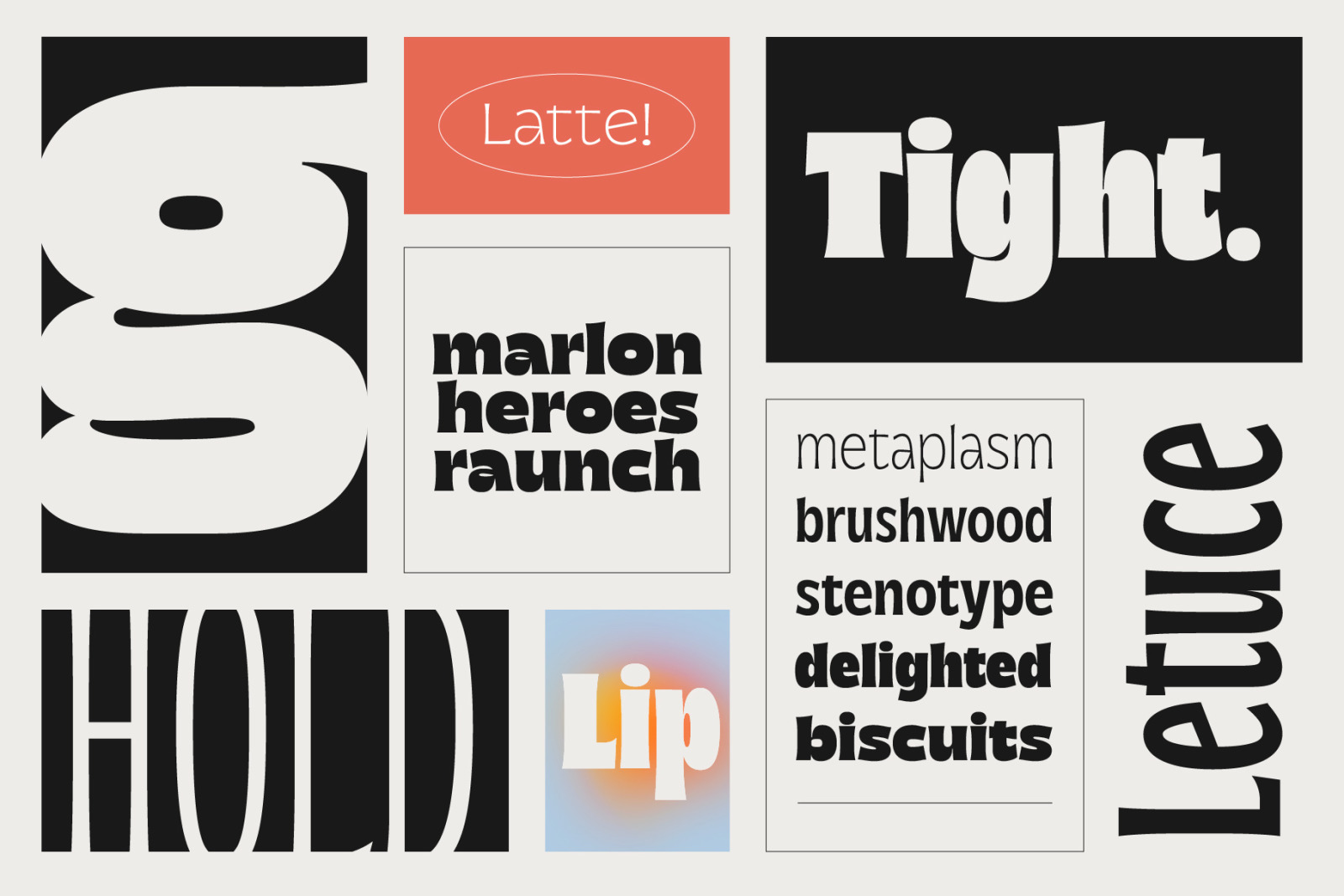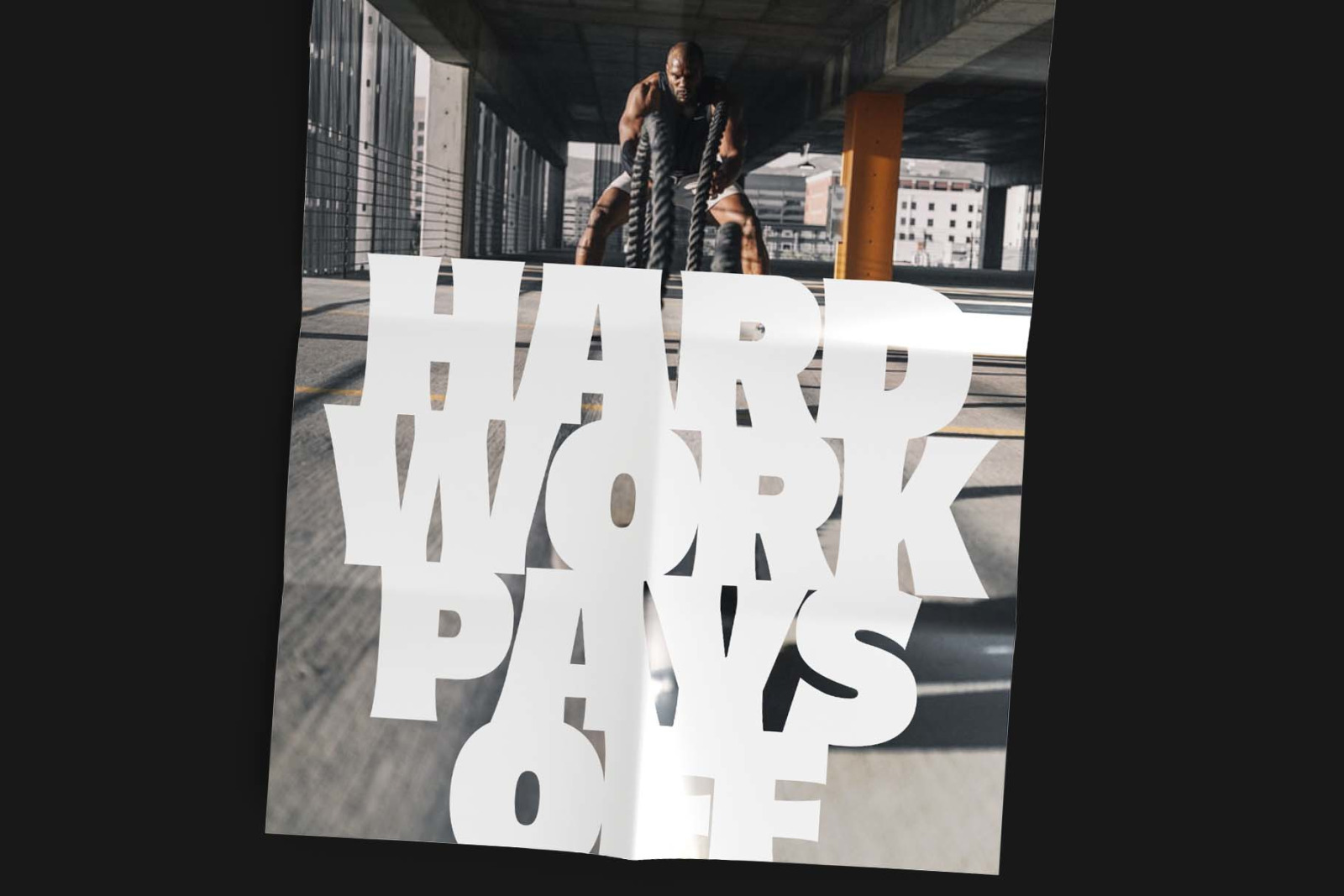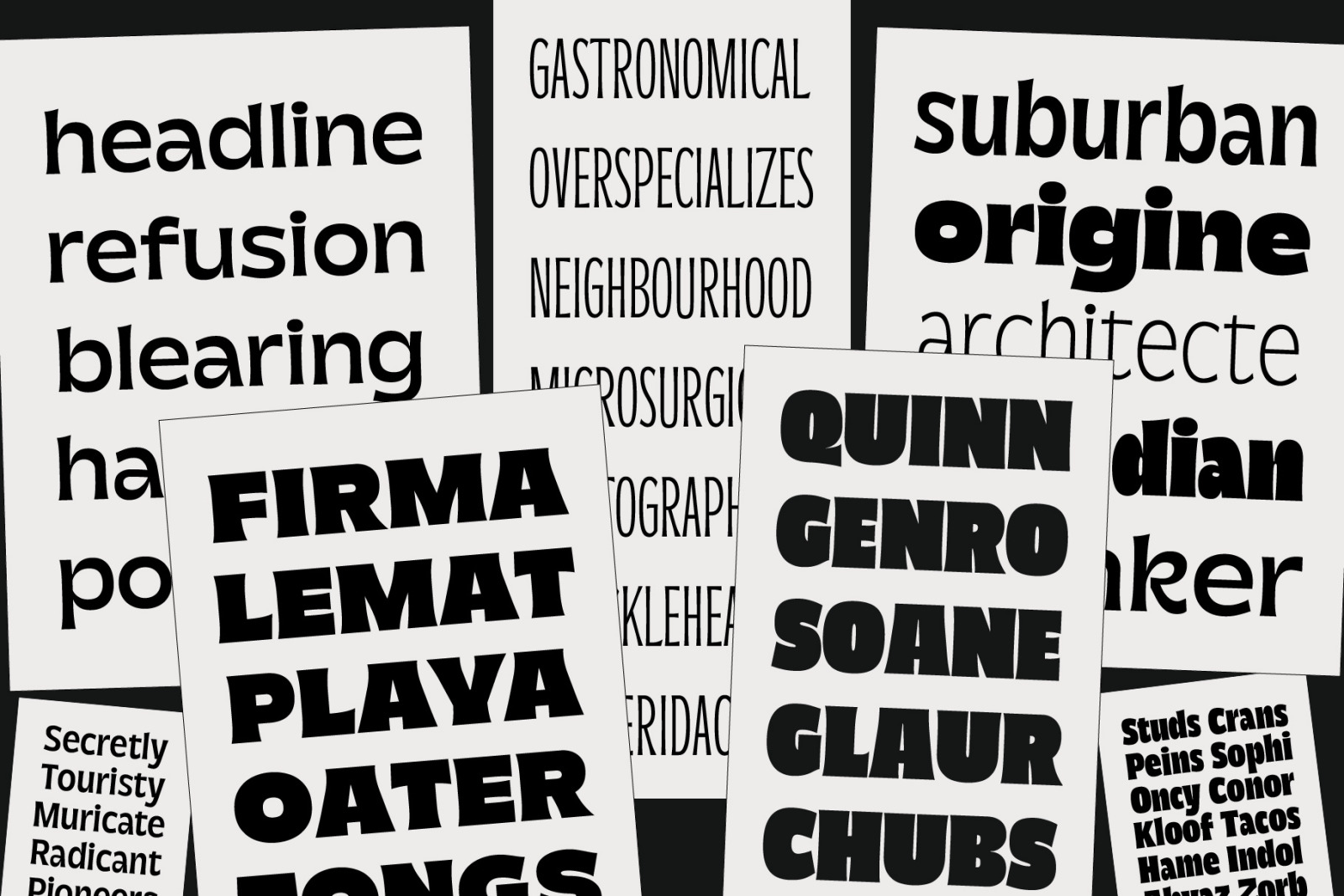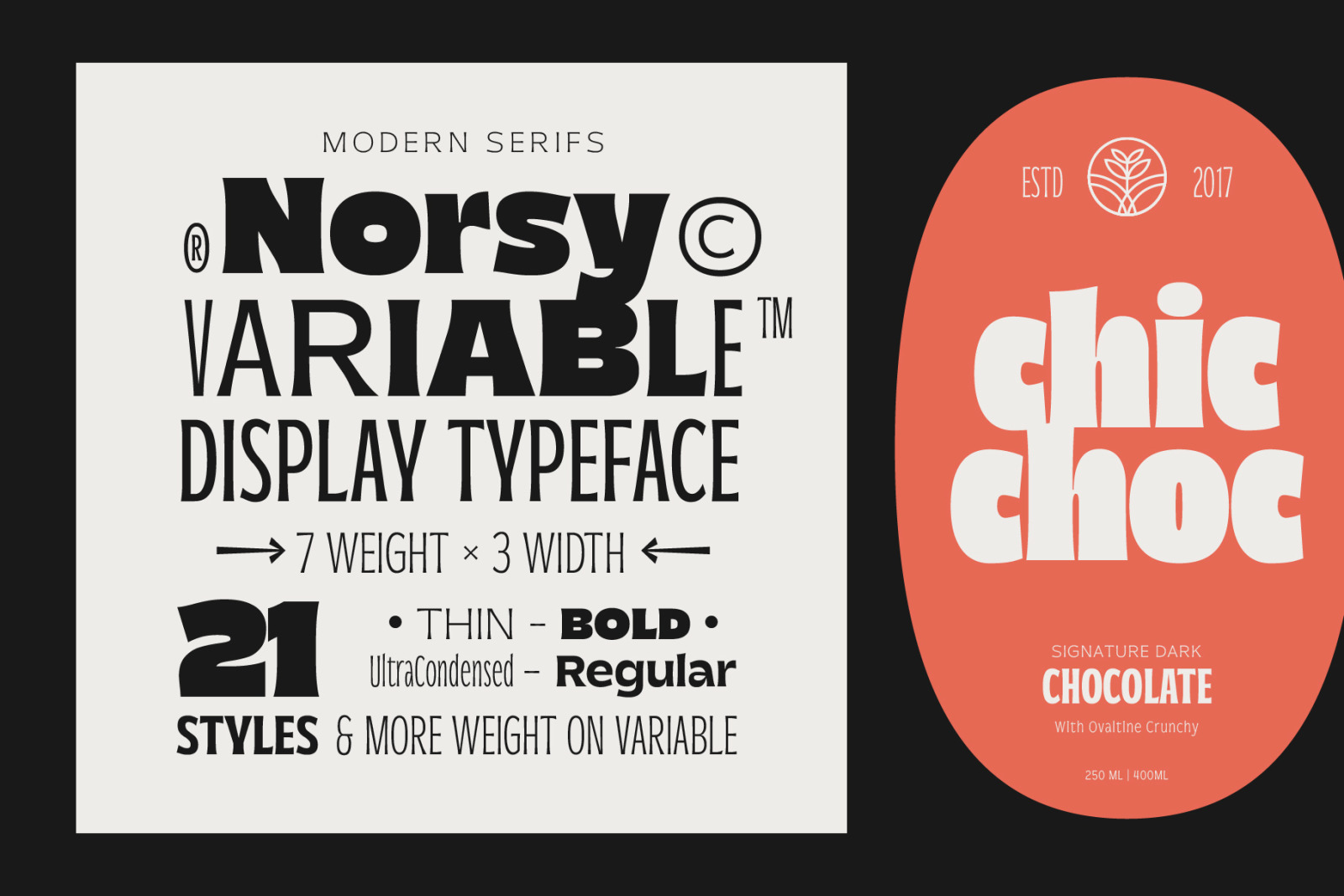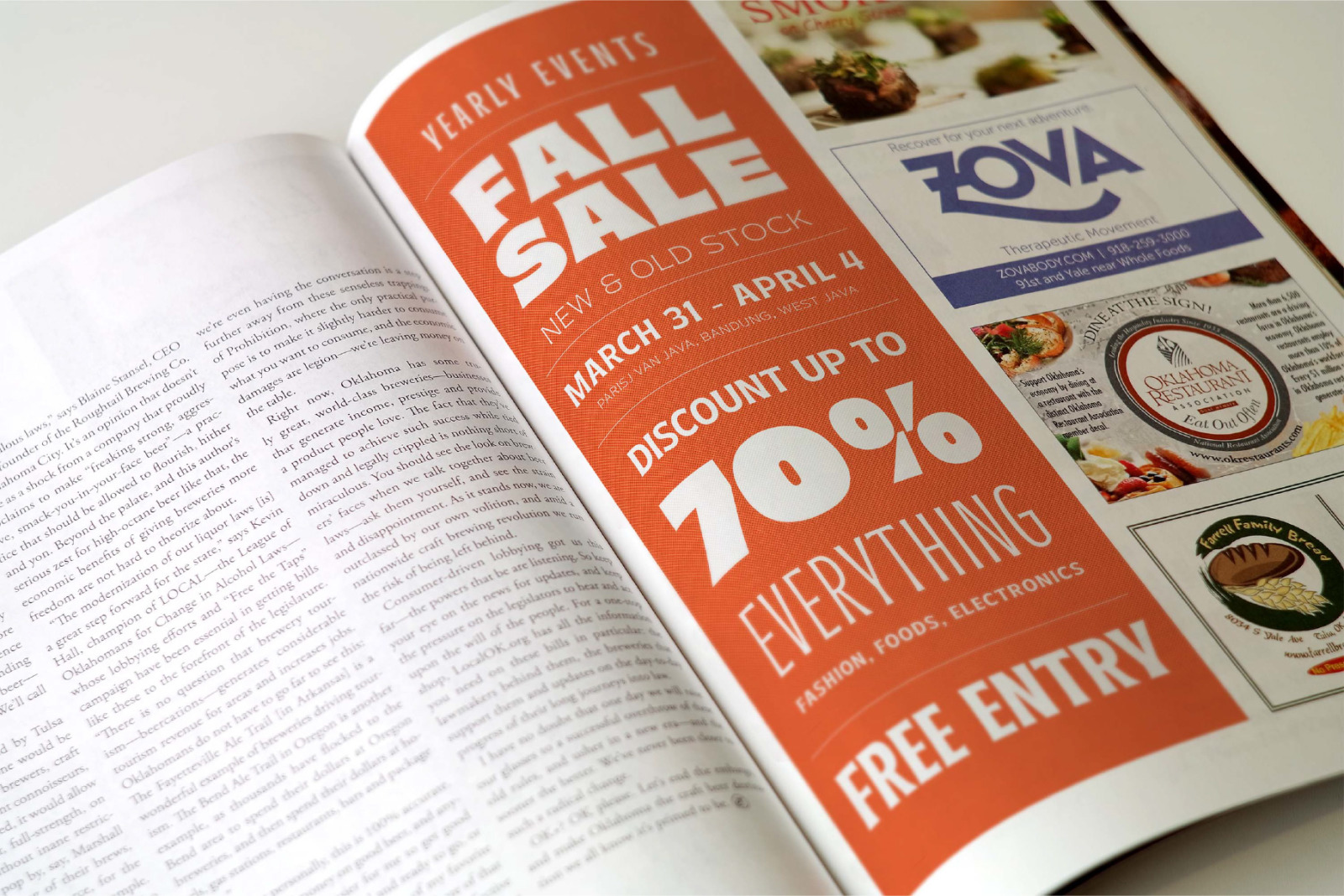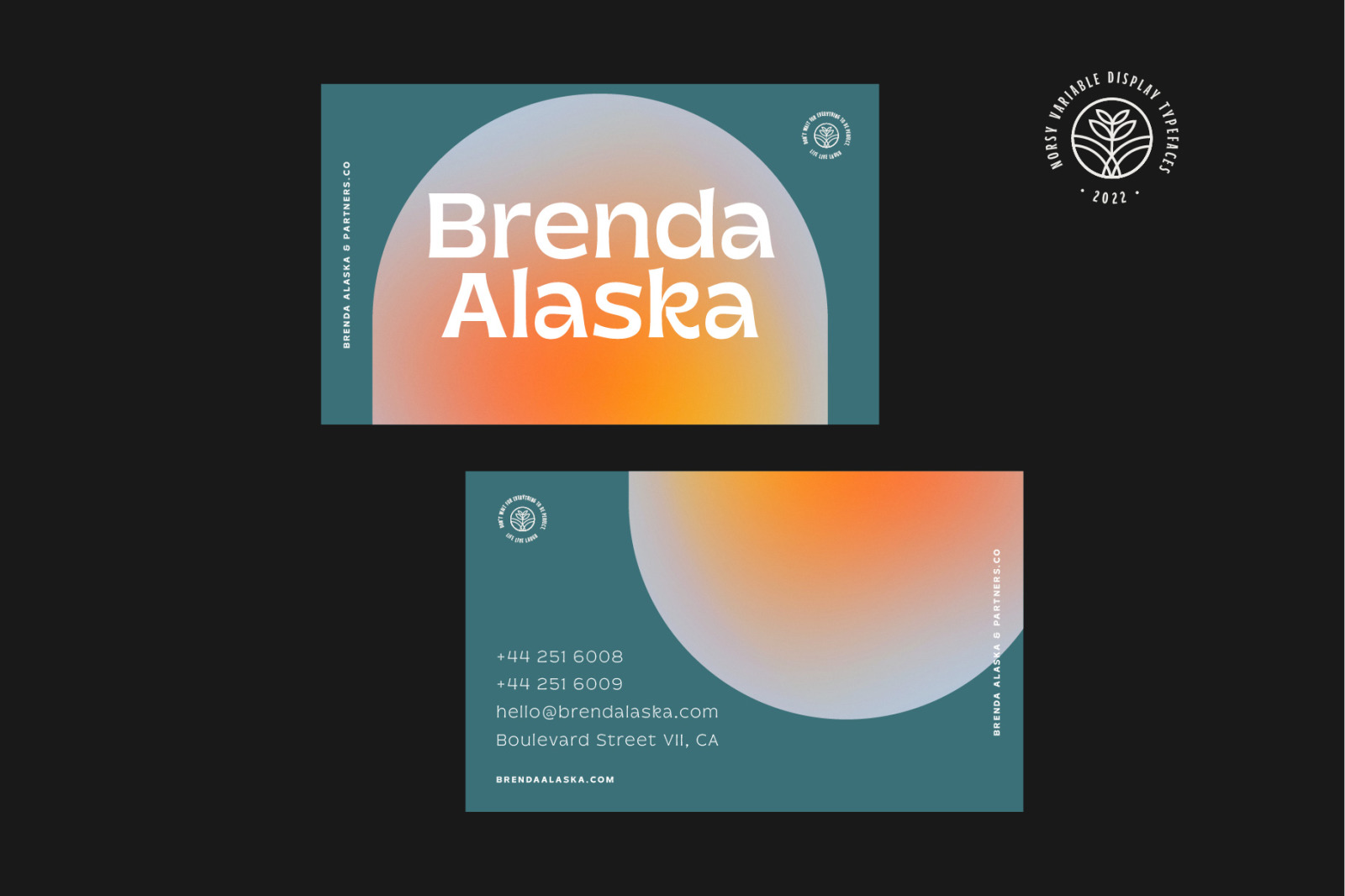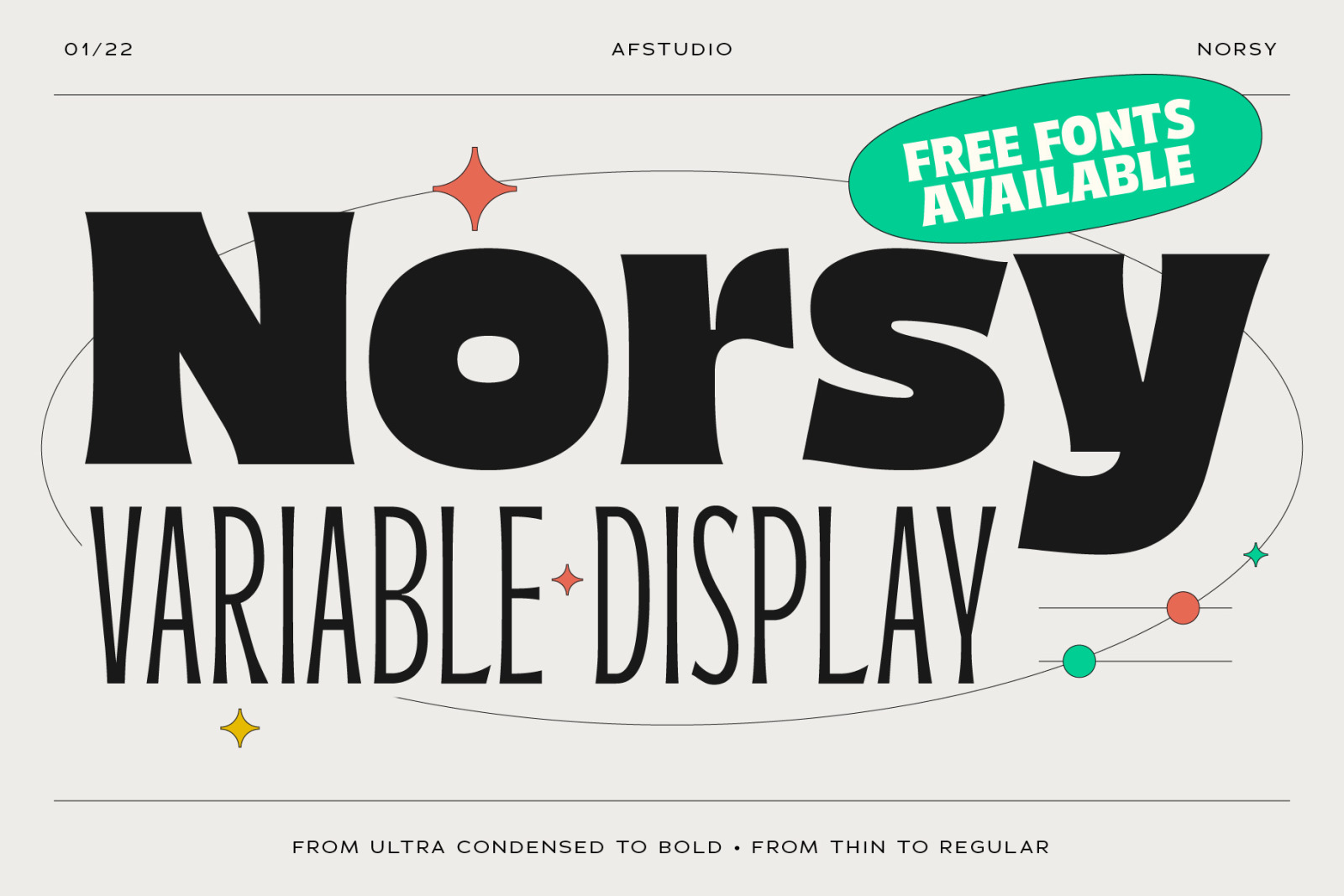
Norsy Variable Display Fonts
Norsy, A Display Typefaces with Variable Weight and Width.
Norsy is a modern elegant variable font. Basically this is a Sans with a small touch of serif on every letters. A Simplicity yet very legible with various width and weight that you can explore, combine, create and help you designing something.
In a Total of 21 Style Font on the OTF files or even more if you are using the Single Files Variable, you can slide the weight and width on the sweetest spot of Norsy.